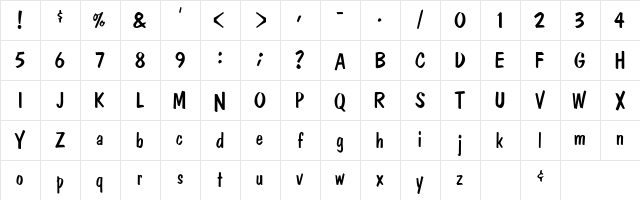
Complete Banga SSi Regular glyph index. Displaying only characters natively supported by Banga SSi Regular font.
Banga SSi is a composed and adaptable typeface that performs quietly and consistently across a wide range of design contexts.